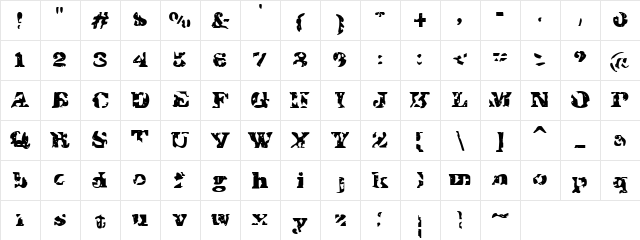
Complete I Shot The Sheriff Regular glyph index. Displaying only characters natively supported by I Shot The Sheriff Regular font.
I Shot The Sheriff is a composed and adaptable typeface that performs quietly and consistently across a wide range of design contexts.